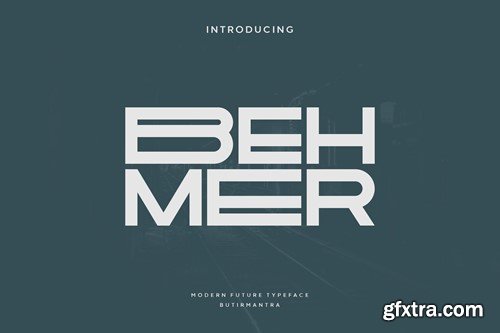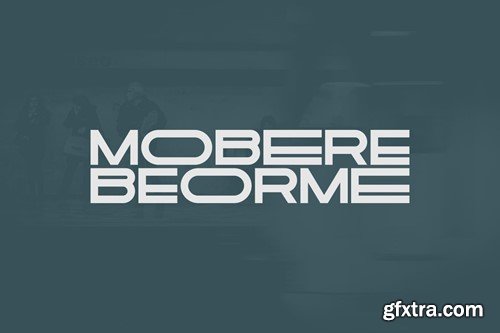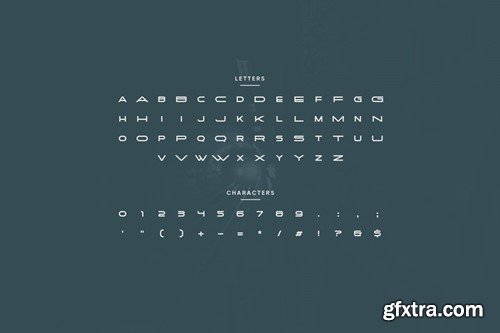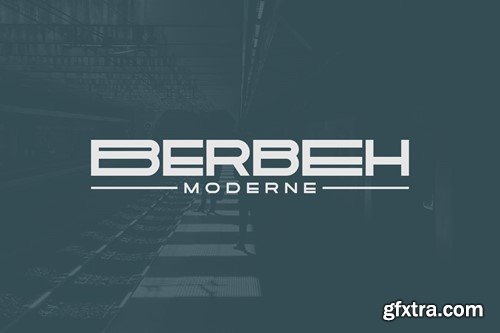
Behmer - Modern Display Font
Behmer is a display font with a unique style with a little improvisation in the uppercase mode, although this font is all-caps but has a unique size for the lowercase letters. This font is perfect for anything related to the future, illustration, poster, title, logo, magazine, or various other design, you will get a different experience and stand out in your designs. File Included : Thanks for subscribe and good luck with your project!